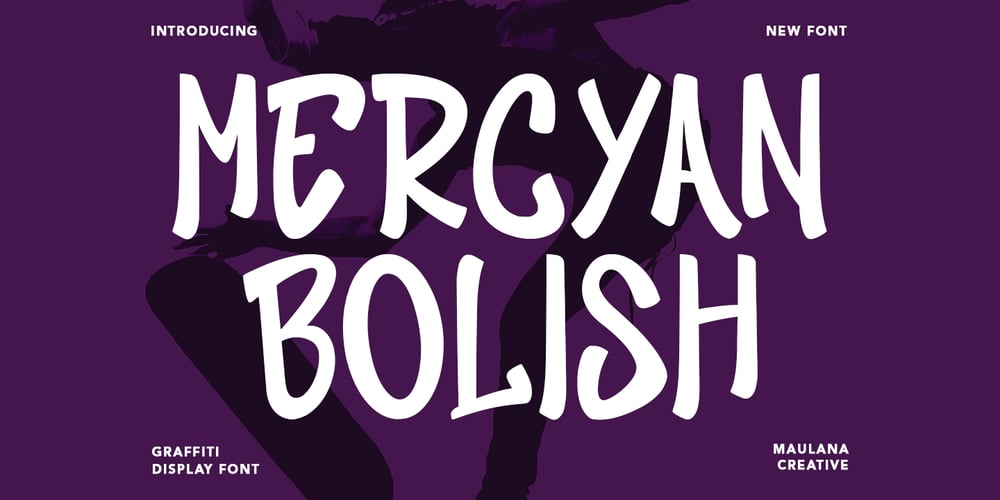
MC Mercyan Bolish Font Family was designed by Gilang Maulana and published by Maulana Creative. MC Mercyan Bolish contains 1 styles and family package options. Mercyan Bolish graffiti display font. With Bold Sharp stroke, Upright and fun character with a bit of ligatures. To give you an extra creative work. Mercyan Bolish graffiti display font support multilingual more than 100+ language. This font is good for logo design, Social media, Movie Titles, Books Titles, a short text even a long text letter and good for your secondary text font with Script. Make a stunning work with Mercyan Bolish graffiti display font.Cheers,Maulana Creative